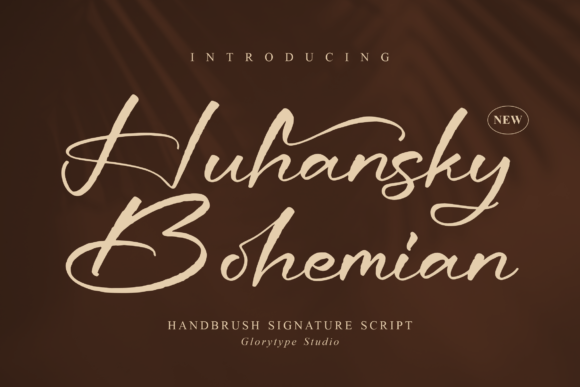
Dive into the world of elegance and charm with Huhansky Bohemian, a captivating script font that will transform your creative projects into masterpieces. Its enchanting handwritten style evokes a sense of timeless beauty, adding a touch of romance and sophistication to every word.
Immerse yourself in the versatility of Huhansky Bohemian, a font that effortlessly adapts to a myriad of applications. Whether you're crafting heartfelt greeting cards, designing eye-catching headlines, or seeking to infuse your content with a touch of magic, this script font is the perfect companion.
Unleash your creativity and let Huhansky Bohemian weave its captivating spell on your designs. Its graceful curves and playful strokes add a touch of whimsy and intrigue, making it the ideal choice for projects that demand a unique and memorable aesthetic.
Picture the joy of receiving a birthday card adorned with the enchanting Huhansky Bohemian script. Its elegant lines and delicate flourishes will convey your heartfelt sentiments with an unparalleled charm, leaving a lasting impression on the recipient.
Allow Huhansky Bohemian to elevate your branding efforts, creating a visual identity that exudes sophistication and creativity. Its versatile nature lends itself perfectly to logos, branding materials, and social media graphics, ensuring that your brand stands out from the crowd.
With Huhansky Bohemian, the possibilities are boundless. Let your imagination soar as you explore the countless ways to incorporate this stunning script font into your creative endeavors. Discover the endless charm of Huhansky Bohemian and transform your designs into captivating works of art.